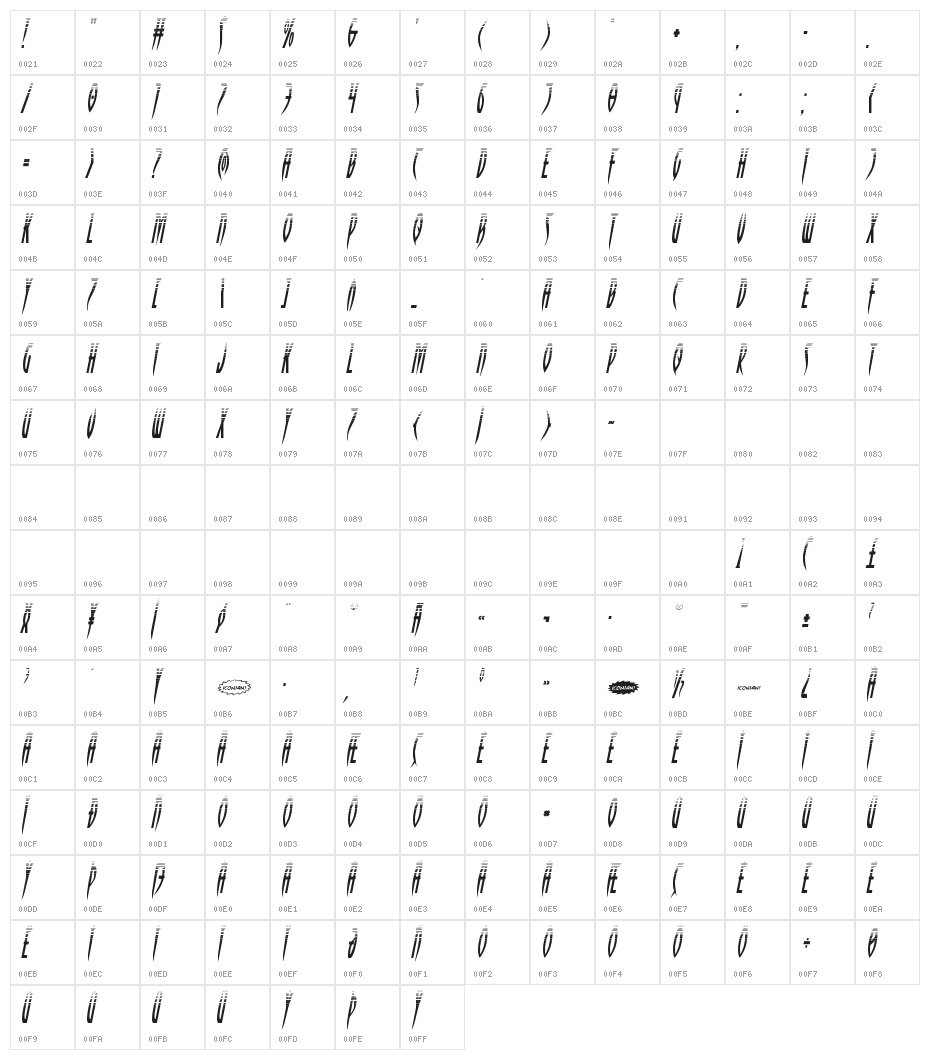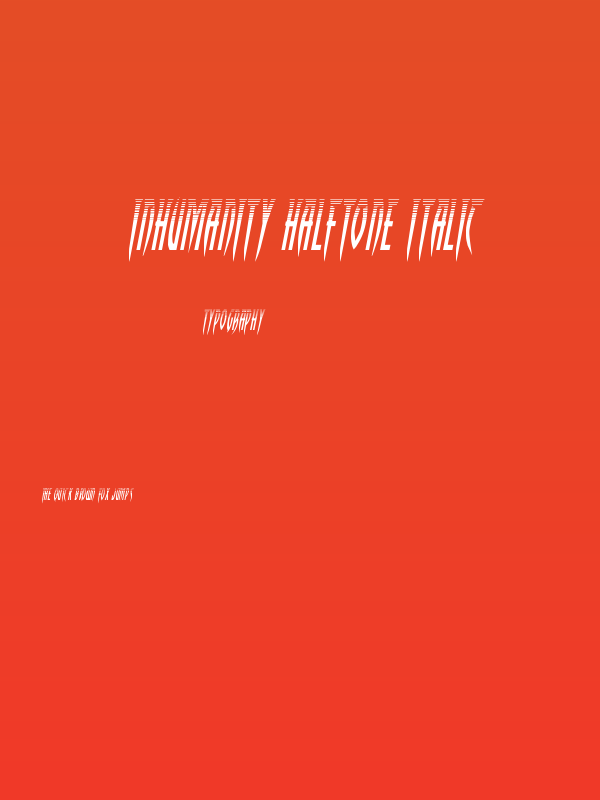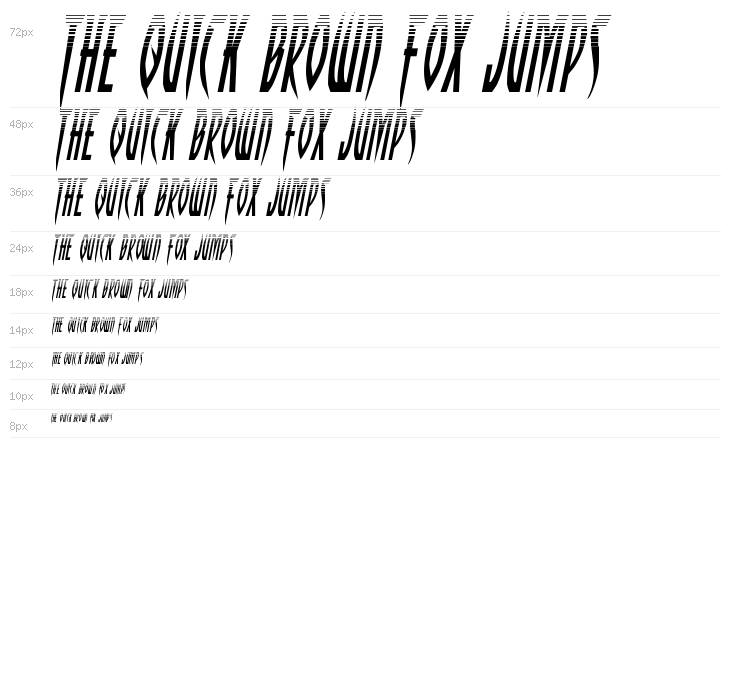
Inhumanity Halftone Italic Font
Inhumanity Halftone Italic Description
This font features a dynamic and edgy design with a halftone effect that gives it a unique, textured appearance. The characters are italicized, adding a sense of motion and urgency. The strokes are bold and angular, with a distinct slant that enhances its modern and futuristic feel. The halftone pattern creates an intriguing visual texture, making it stand out in any design. The uppercase and lowercase letters maintain a consistent style, while the numbers and special characters are equally bold and stylized, ensuring a cohesive look across all text elements.
| Proposed Projects | Ideal for use in posters, album covers, and branding projects that require a bold, modern aesthetic. |